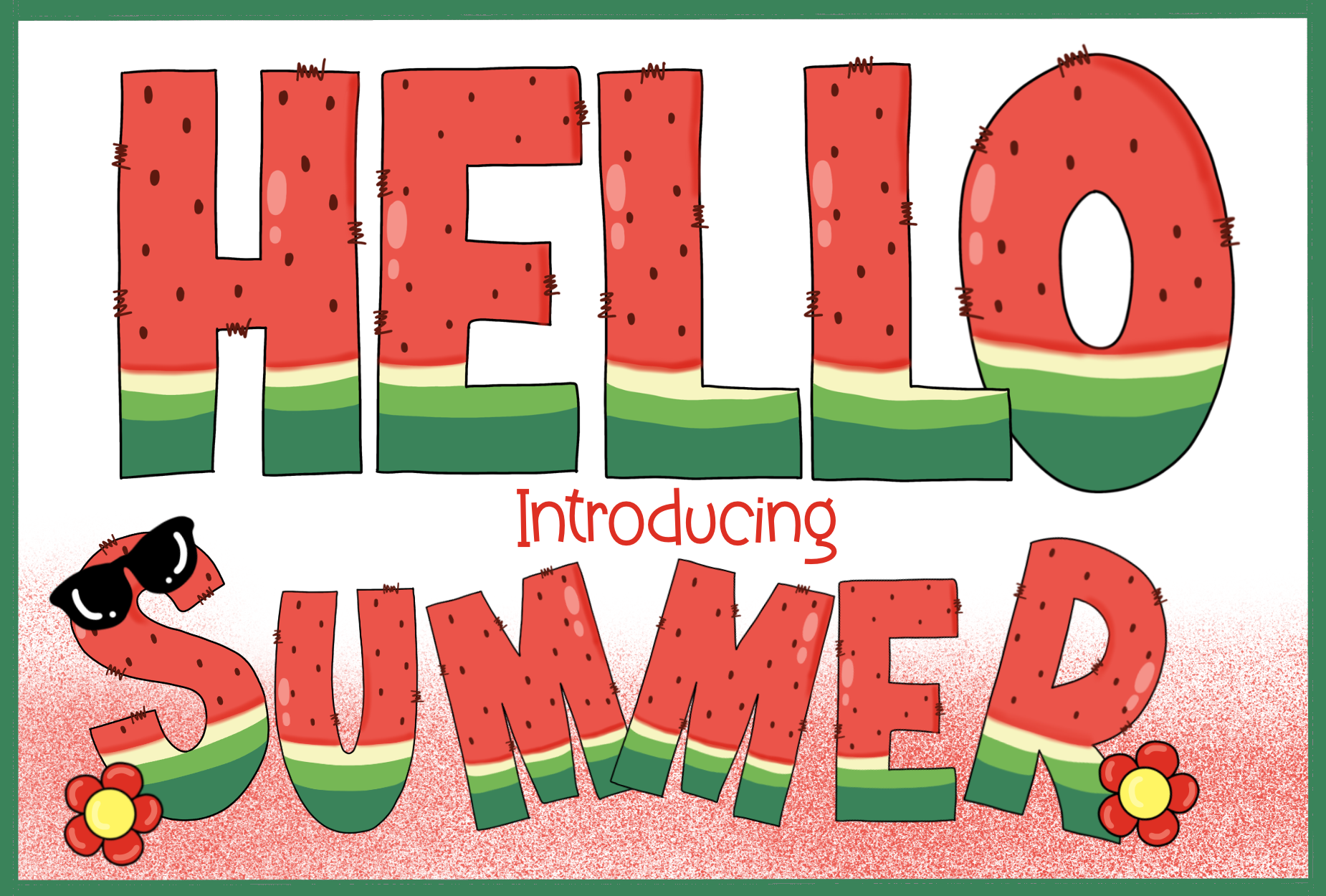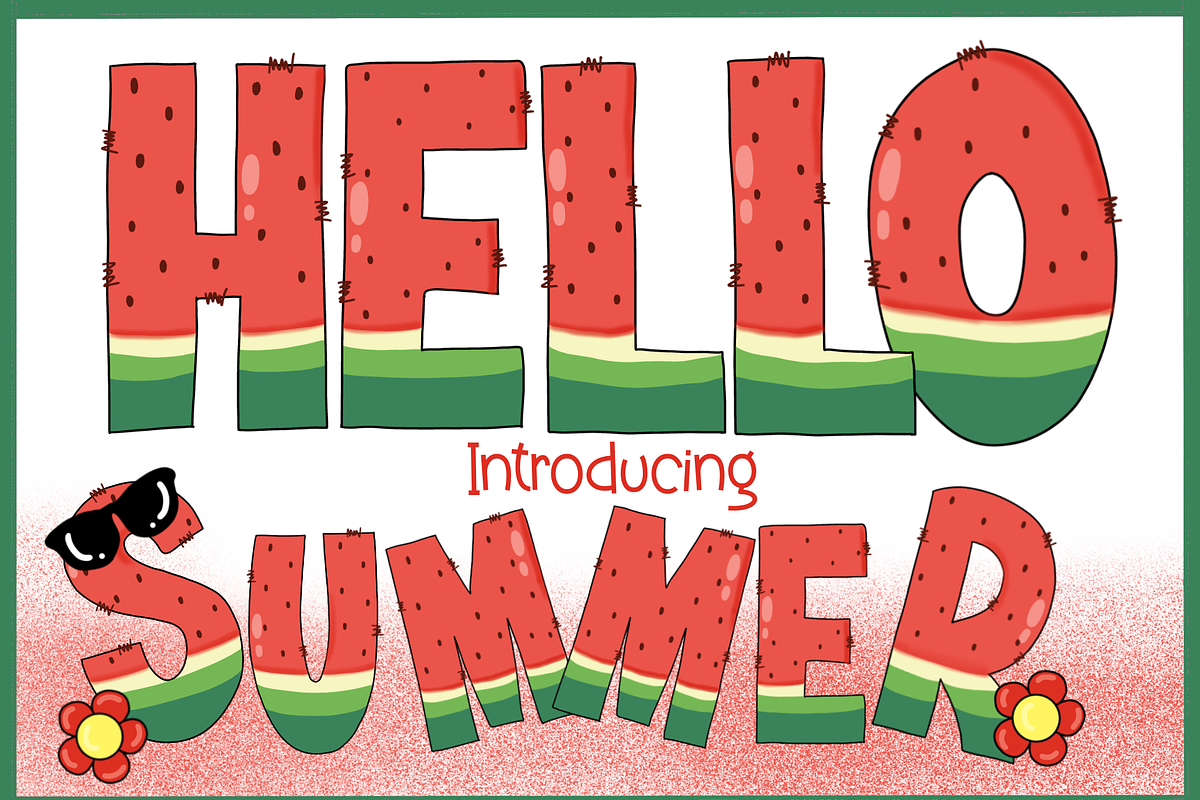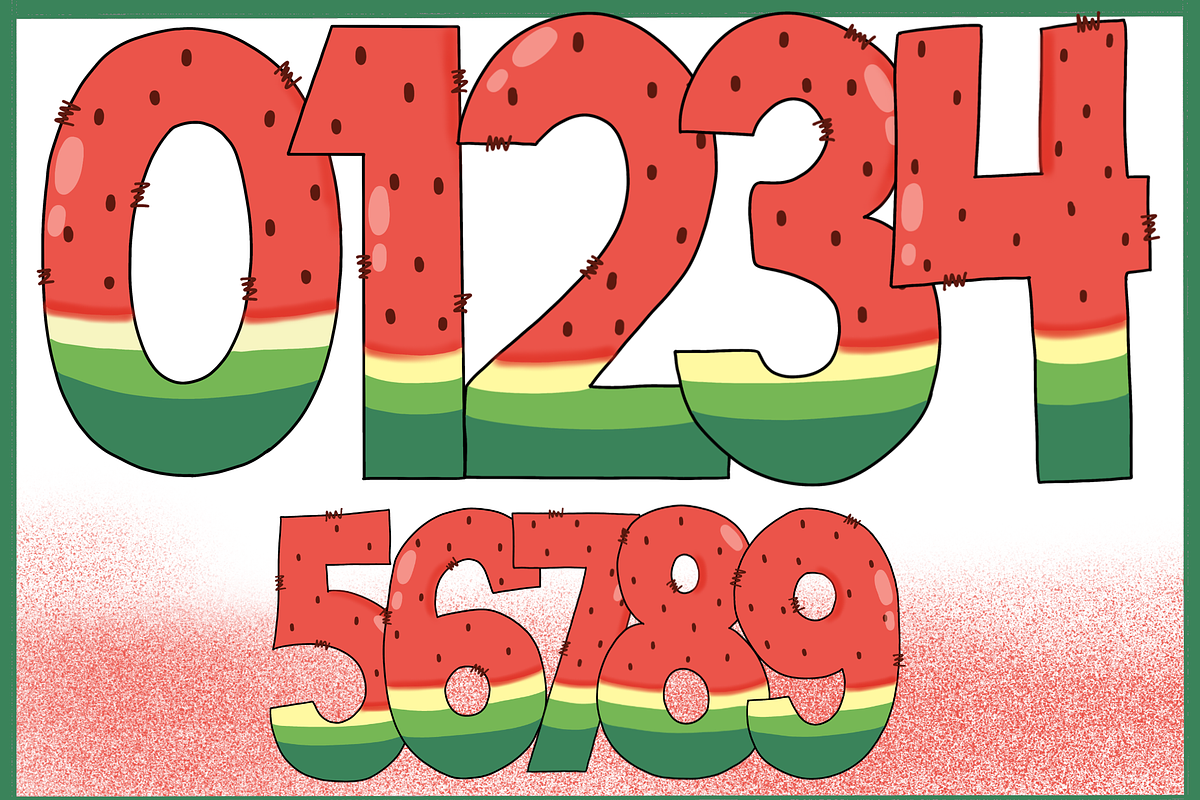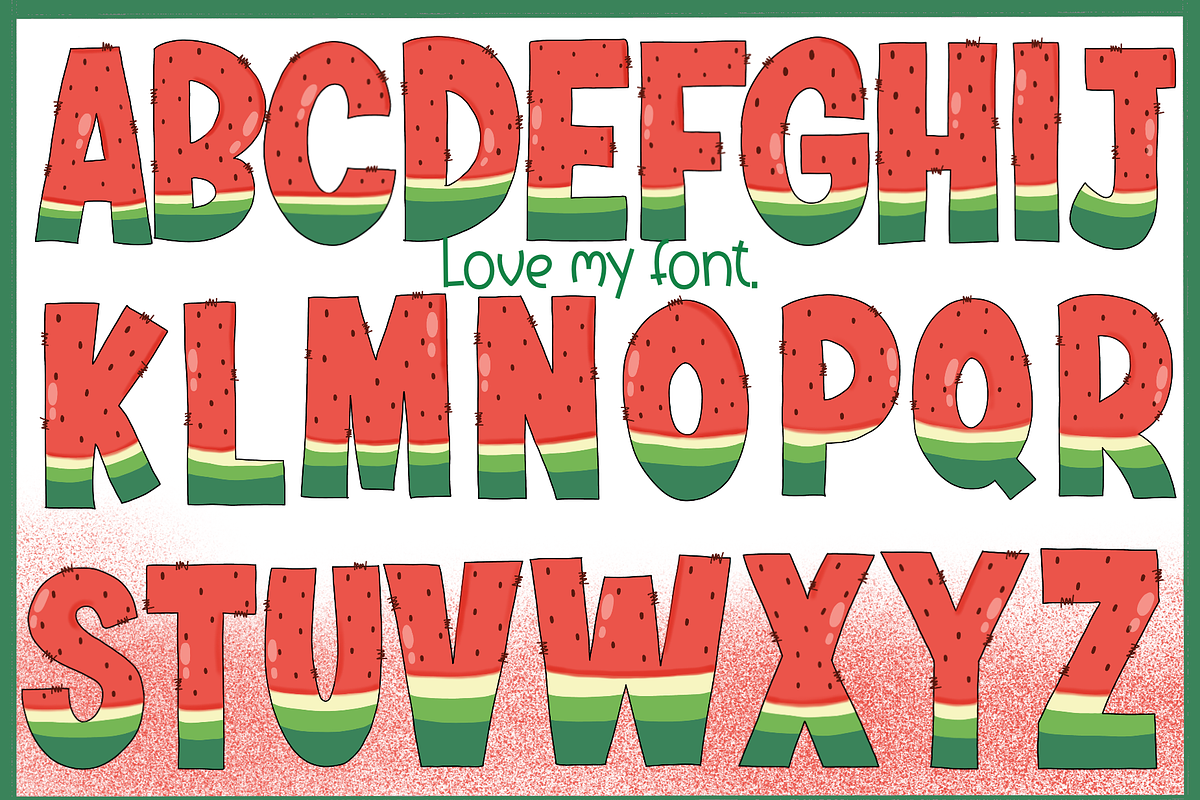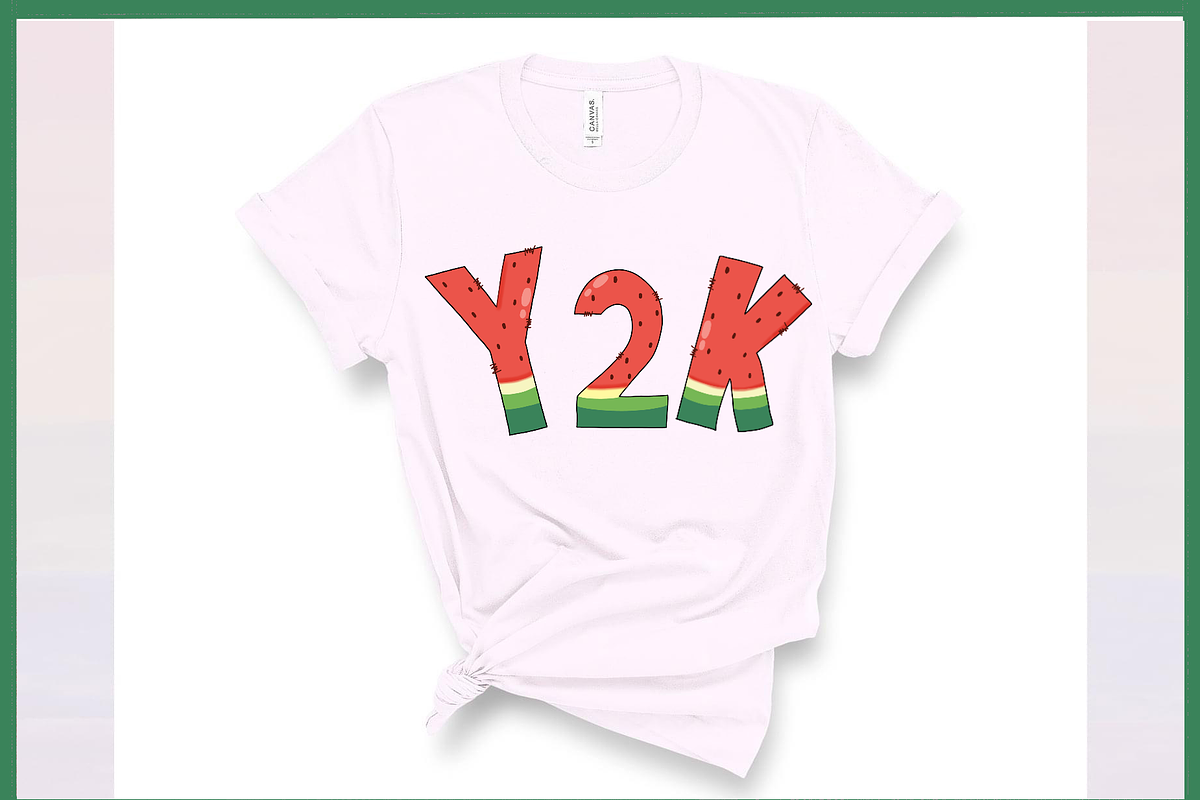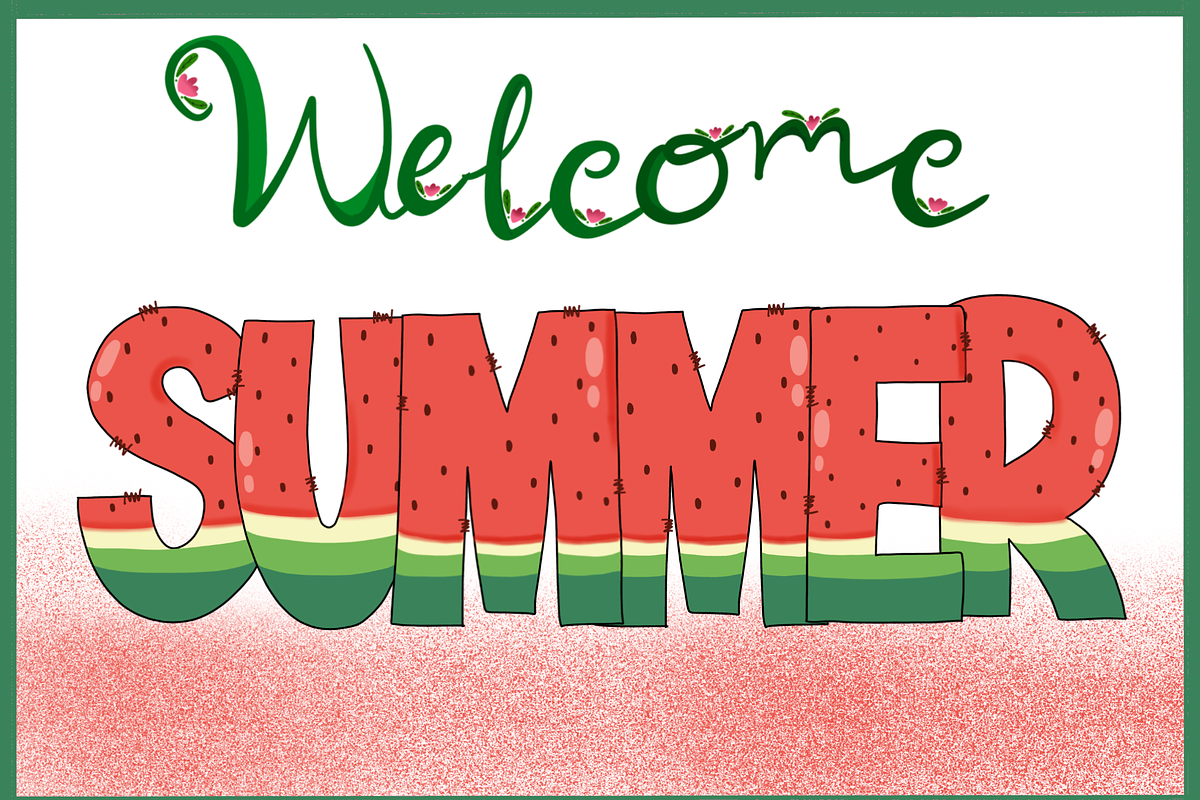
Hello Summer-PNG fonts
Hello Summer Font
Super cute handwriting font, simple style, suitable for teaching. decorate the presentation Use for education, advertising, illustration, multi-purpose use. welcome everyone thanks.